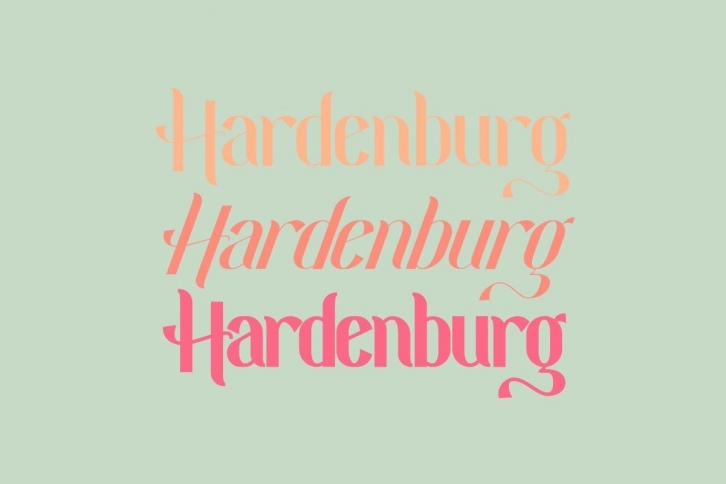
Hardenburg is a beautiful and stylish display font. Trendy and unique, this font will elevate each of your creations. Hardenburg is PUA encoded which means you can access all of the glyphs and swashes with ease!Â